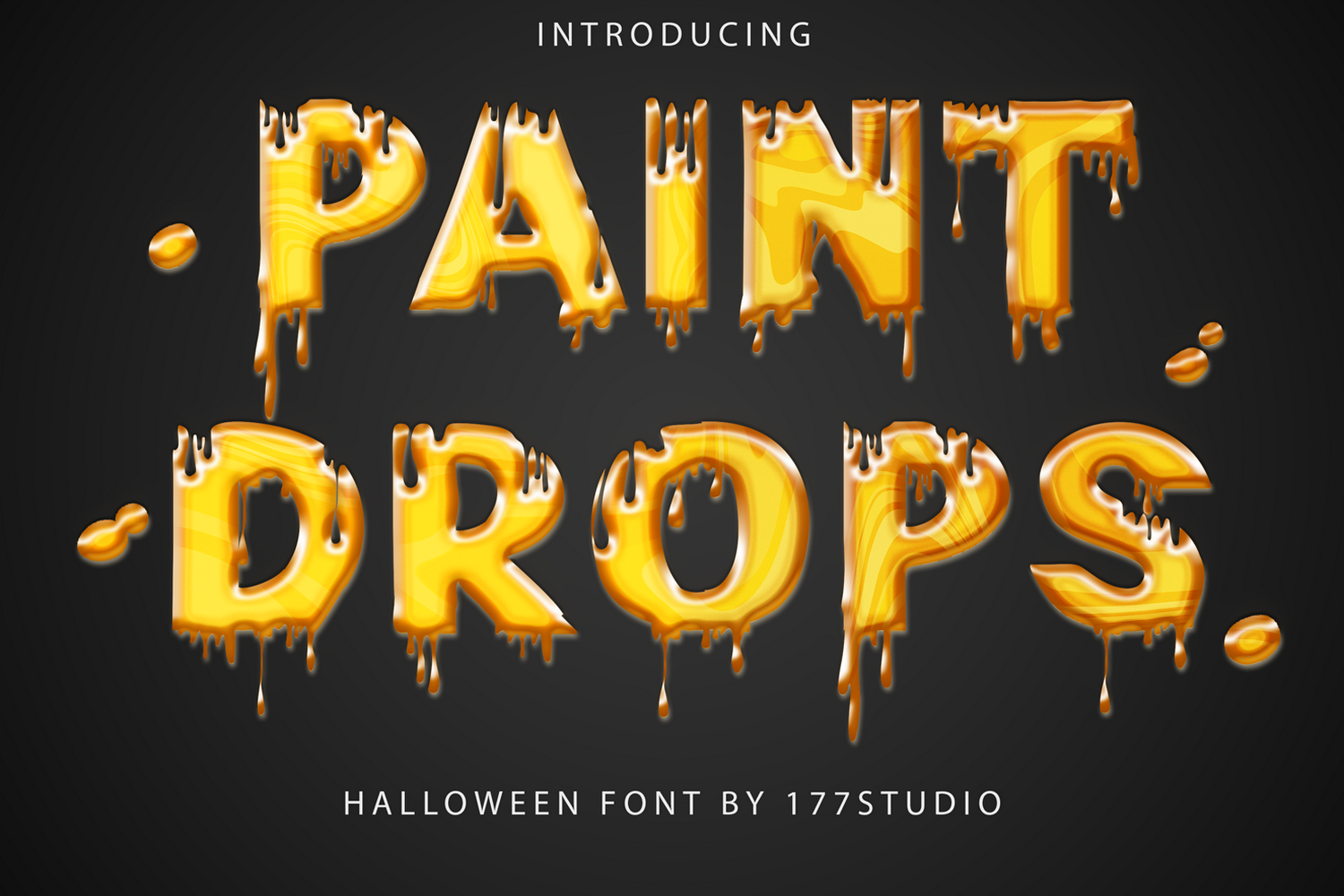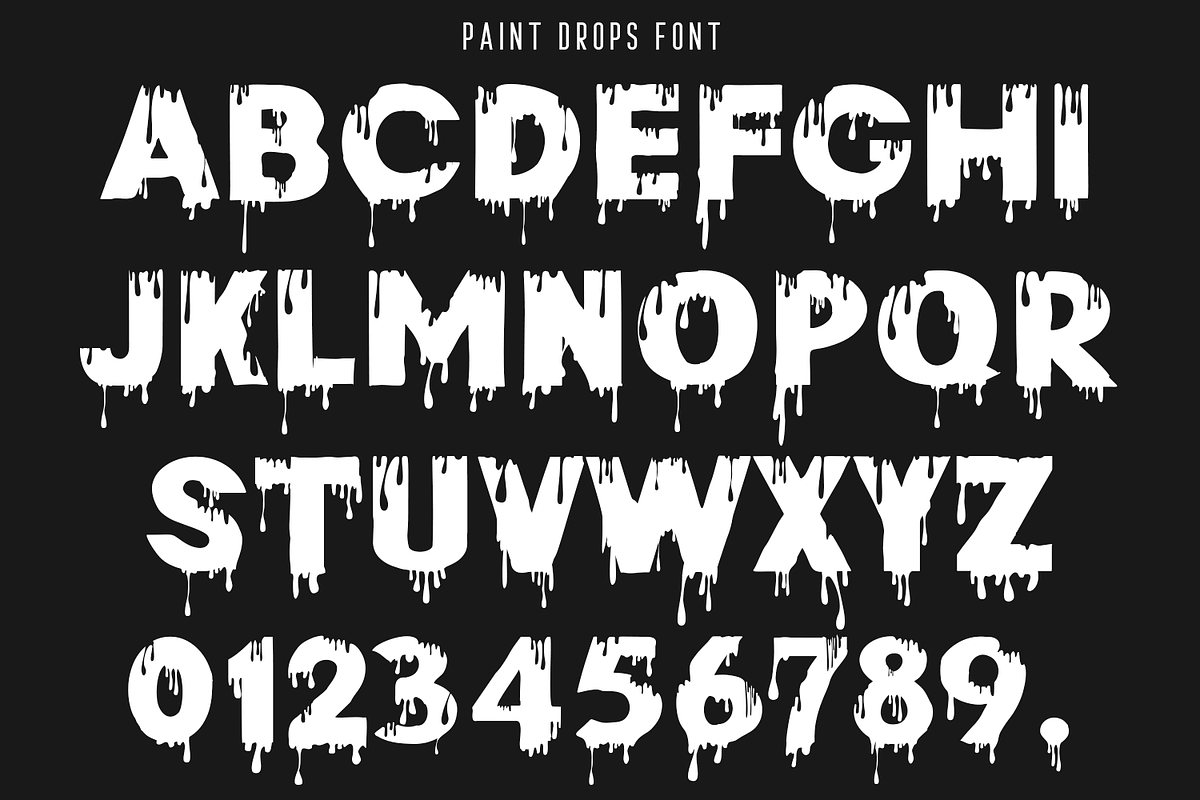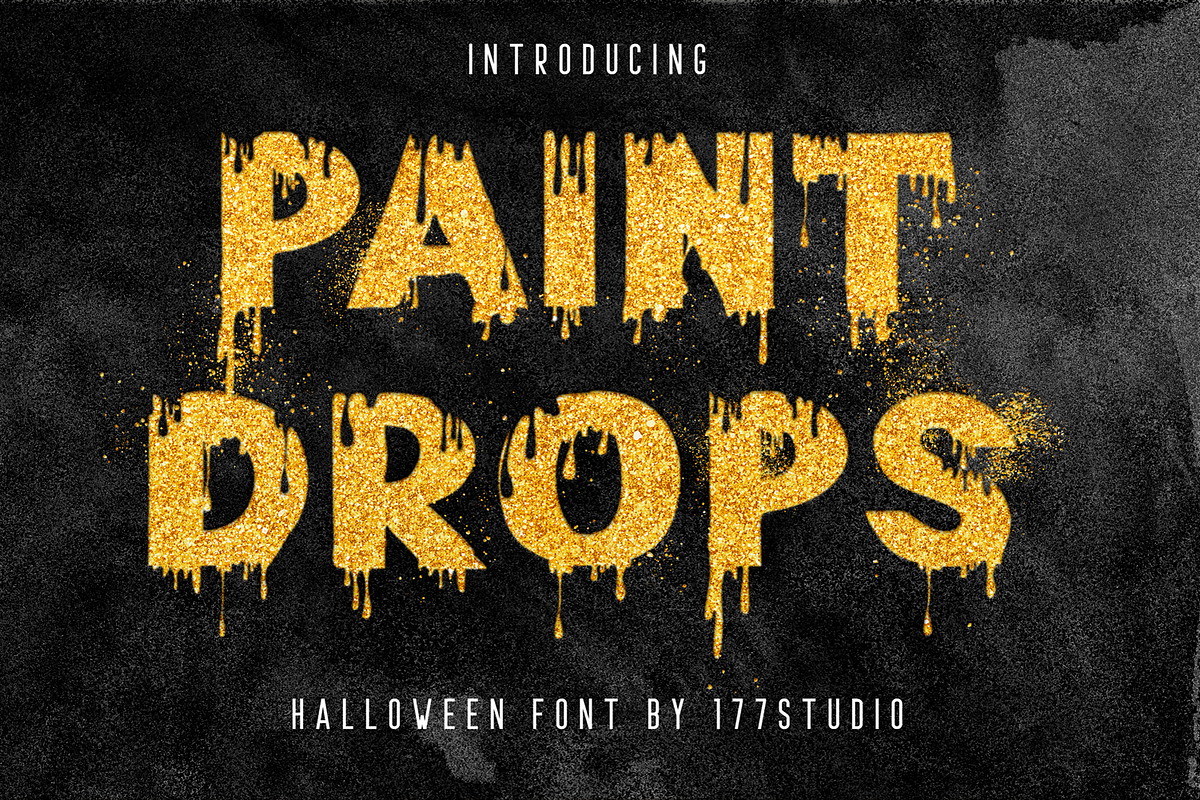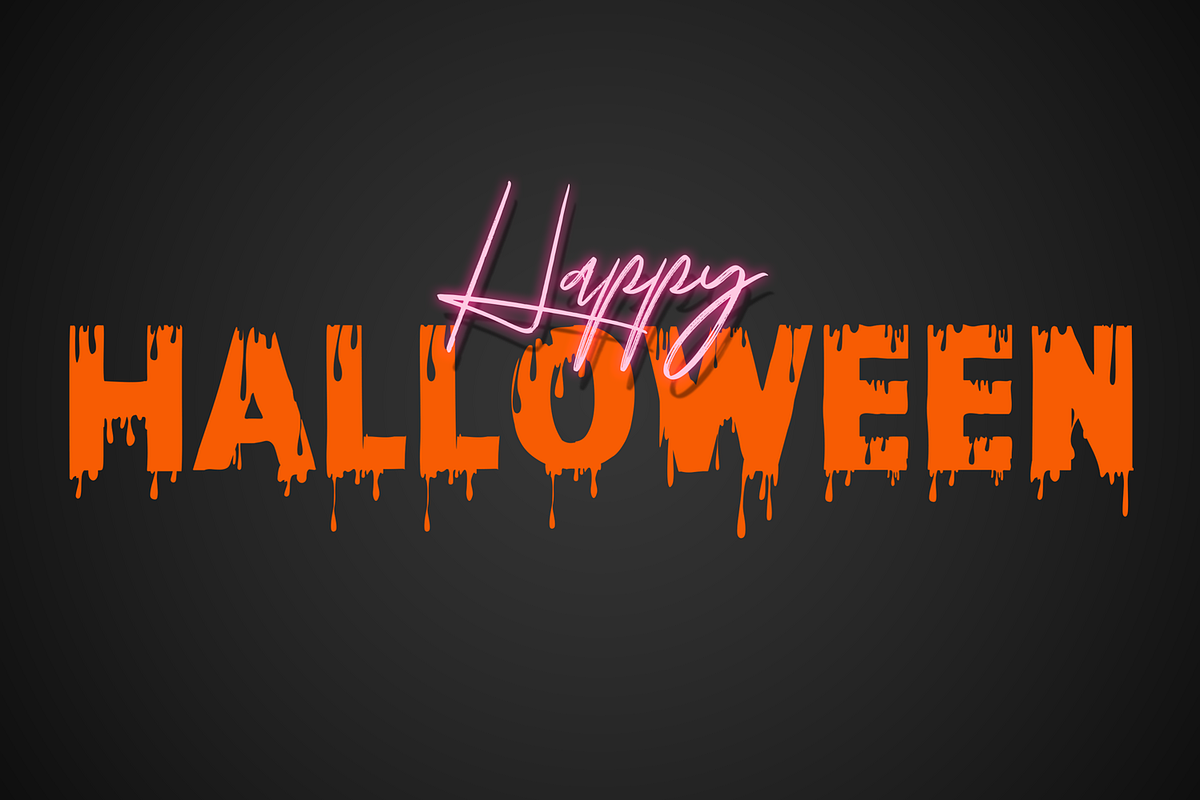
Paint Drops – Halloween Font
Paint Drops – Halloween Font, is a scary style font part, design for a series of Halloween posters, the goal was to reach a look and feel of mid-century design. Perfect for retro and Halloween design projects.